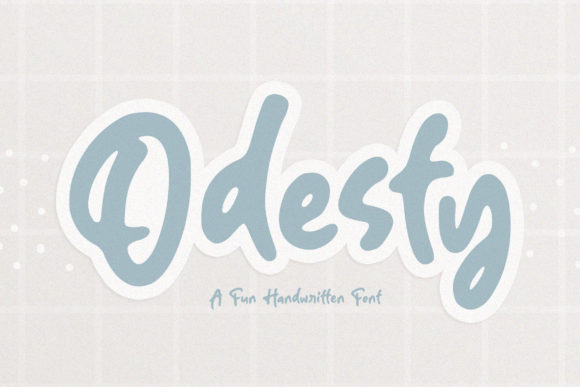
Step into the realm of visual enchantment with Odesty Font, a unique display typeface crafted by Orenari. Designed to captivate and inspire, Odesty Font is an artistry seamlessly blending modern elegance with a touch of vintage charm.
As a display font, Odesty Font possesses a larger x-height and shorter ascenders and descenders, making it the perfect choice for headlines, titles, logos, branding, and other prominent visual elements. Its well-balanced letterforms exude a level of sophistication and clarity that speaks volumes, ensuring your message is not just seen, but felt.
Odesty Font's versatility shines through in its ability to adapt to various design aesthetics. Its organic, flowing lines bring a touch of sophistication to minimalist designs, while its retro-inspired curves add a dash of nostalgia to contemporary creations. The font's unique personality seamlessly complements any design vision, whether you're aiming for a modern, vintage, or timeless look.
More than just a font, Odesty Font is a creative tool that unleashes your imagination. Its natural and cool demeanor invites you to explore new design possibilities, making it perfect for a wide range of projects, from branding and marketing materials to social media graphics and website designs.
Embark on a design odyssey with Odesty Font as your guide. Transform your design ideas into captivating visual masterpieces that resonate with your audience. Discover the endless possibilities that await, as Odesty Font becomes your trusted companion in the world of design.